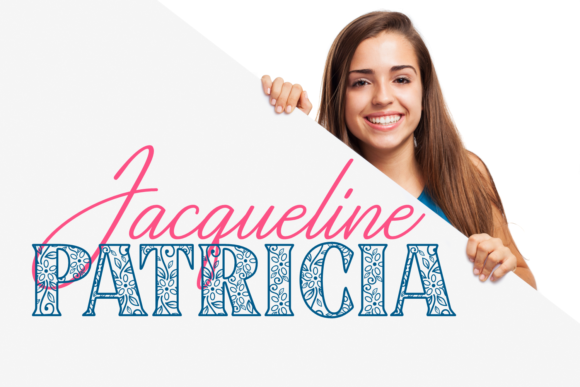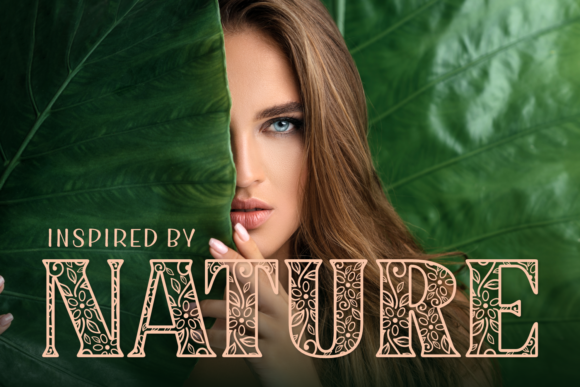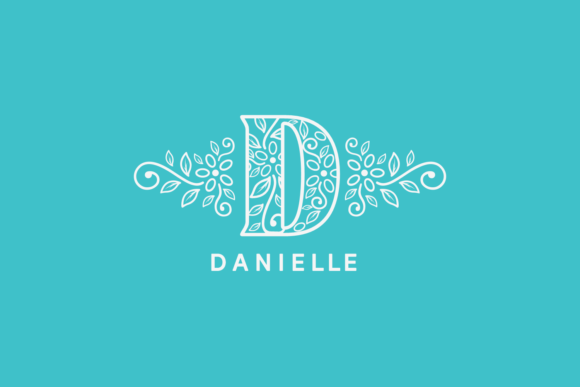
Introduction to Mega Flowers Font
Do you remember that moment when you stumbled upon the perfect font for your creative project? It’s like the puzzle pieces finally fit together, and your design transforms into something truly magical. For me, that moment was when I discovered the Mega Flowers Font – a high-quality, bold, and fun decorative font that instantly elevates any design.
Whether you’re working on a children’s book, a wedding invitation, or a social media graphic, the Mega Flowers Font is a design resource that’s sure to bring a smile to your face and a pop of color to your project. With its transparent background and playful design, it’s the perfect addition to any creative endeavor.
As a designer, finding the right font can be a game-changer. It’s not just about aesthetics; it’s about conveying the tone and mood of your design. The Mega Flowers Font is a valuable asset in any designer’s toolkit, and with its free download available, you can start experimenting with it today.
Key Features of Mega Flowers Font
- High-quality design with intricate details, perfect for a creative project
- Unique characteristics include swashes, ligatures, and alternate characters, adding a touch of elegance to any design
Honest Review: Mega Flowers Font
I recently stumbled upon the Mega Flowers Font, and I must say it’s a great addition to any designer’s toolkit. The font is free to download, which is a definite bonus for those on a budget. The transparent background is also a plus, making it easy to incorporate into any design project.
- ✨ High-quality design: The font is well-crafted and visually appealing.
- ✨ Versatility: The Mega Flowers Font is suitable for a wide range of creative projects, from wedding invitations to children’s book illustrations.
- ⚠️ Limited customization options: While the font itself is beautiful, there are limited options for customizing its appearance.
- ⚠️ Not ideal for complex typography: The font may not be the best choice for projects that require intricate typography or multiple font styles.
Overall, I’m impressed with the Mega Flowers Font. It’s a great resource for designers looking to add a touch of whimsy to their creative projects. While it may have some limitations, the font’s high quality and versatility make it a valuable addition to any design library.
Mega Flowers Font is ideal for a variety of creative projects, including wedding invitations, party decorations, and social media graphics. The font is also suitable for use in branding and marketing materials, such as logos and business cards.